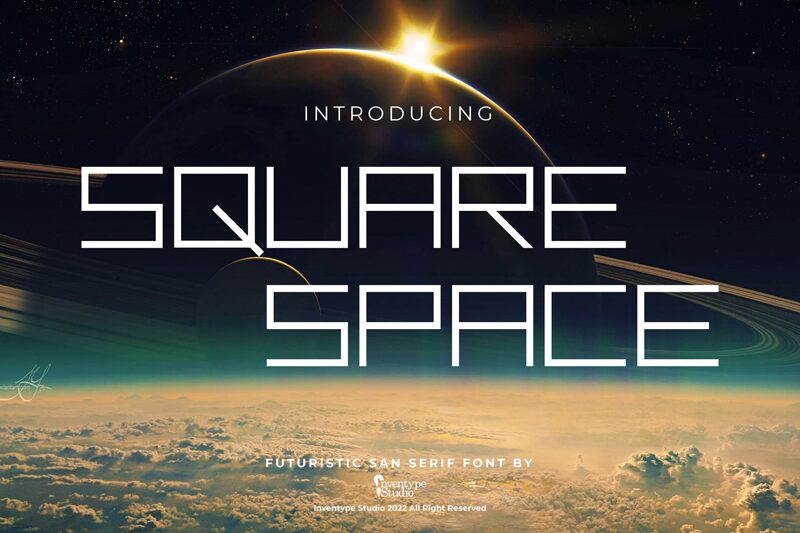
Square Space, a creation by the talented designer Khusnul Ulum, is a captivating display font that exudes a sleek and futuristic vibe.
Its light weight adds an elegant touch to any project, making it perfect for modern websites, innovative technology blogs, or cutting-edge product presentations. With its extra-expanded width, Square Space commands attention and fills the screen with its bold presence.
Whether used for headlines or logos, this techno-inspired font will bring a sense of sophistication and style to your designs.
Square Space
Khusnul Ulum